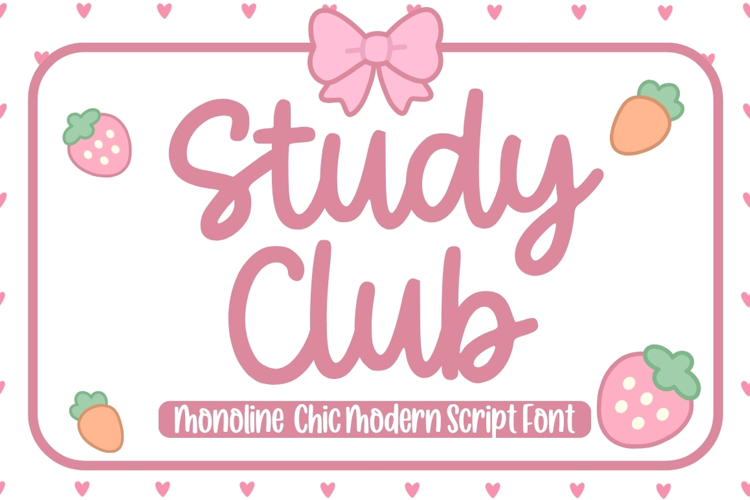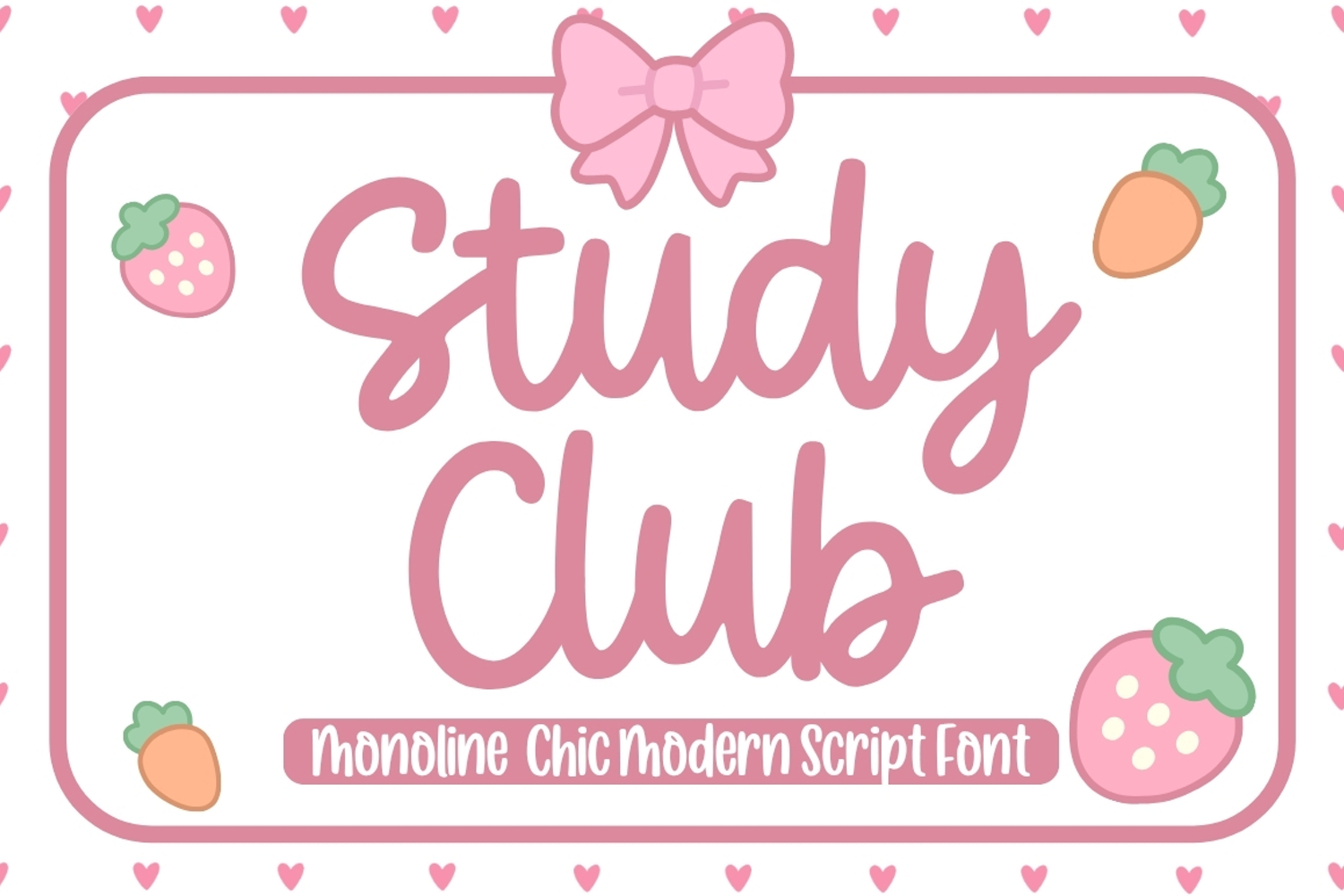
Study Club
Study Club is a clean and elegant monoline script font designed to capture the warmth of natural handwriting with a modern, minimalist touch. Featuring smooth, continuous strokes and balanced letterforms, this font delivers a friendly and approachable personality while maintaining excellent readability. Its simple yet stylish appearance makes it suitable for a wide variety of creative and professional projects.
Inspired by handwritten notes and everyday creativity, Study Club brings an authentic and relaxed feel to your typography. Whether you're designing educational materials or building a contemporary brand identity, this font adds charm and sophistication without overwhelming your layout.